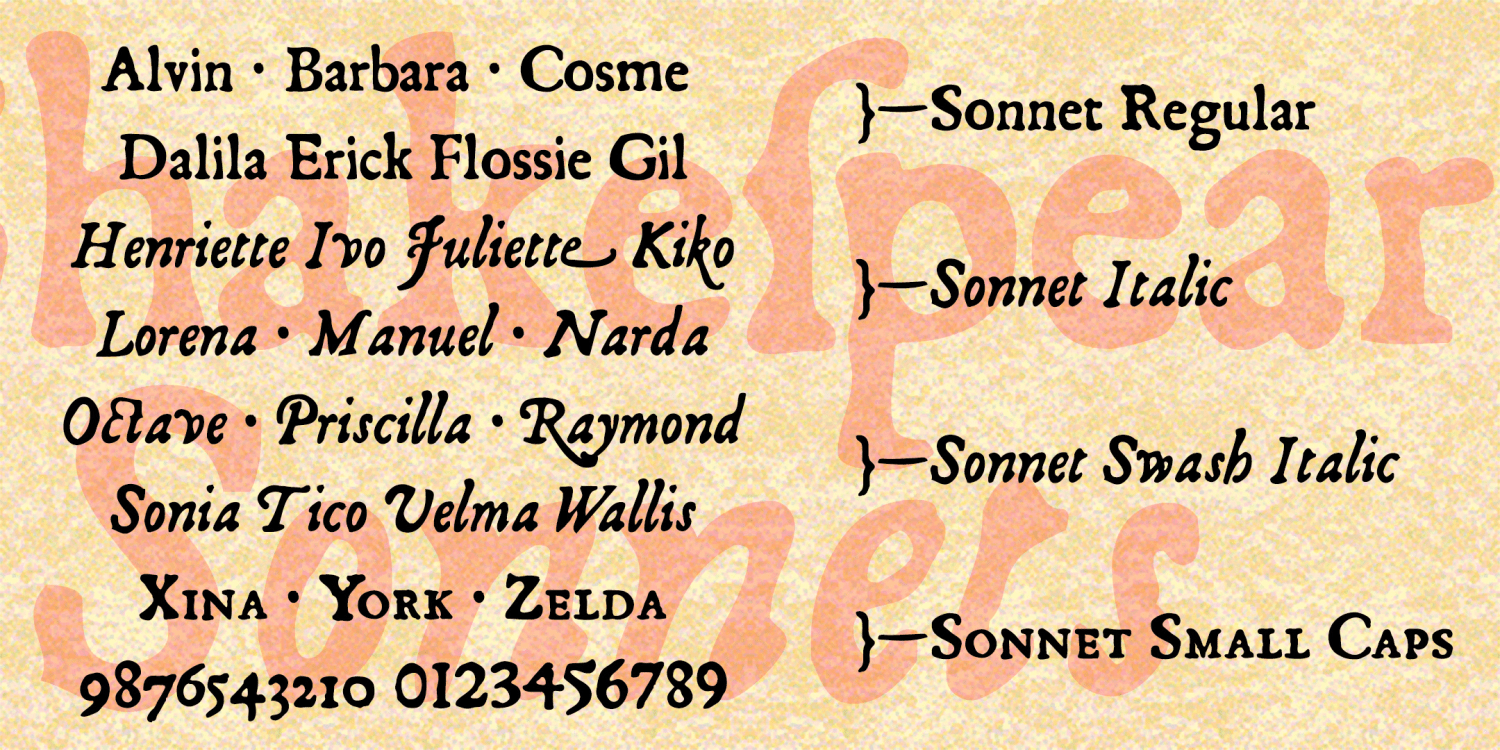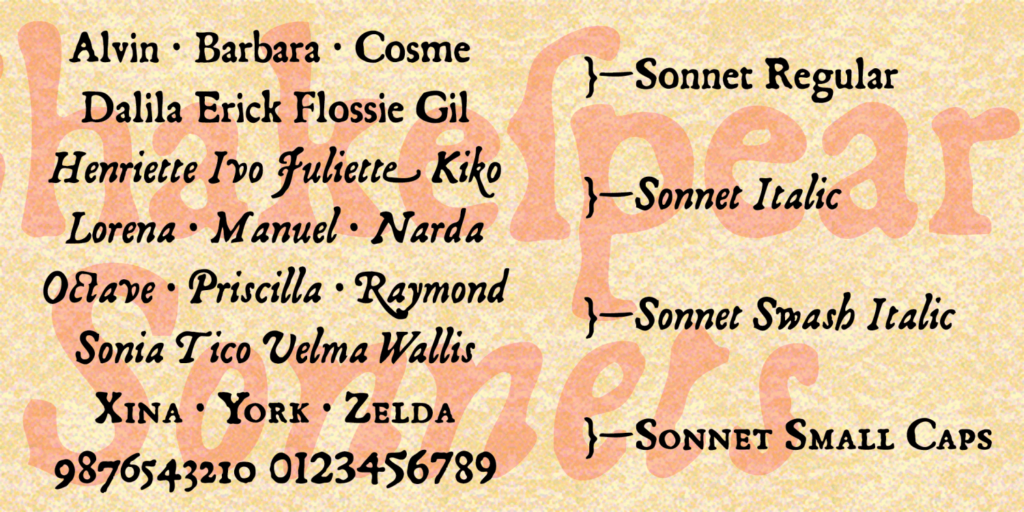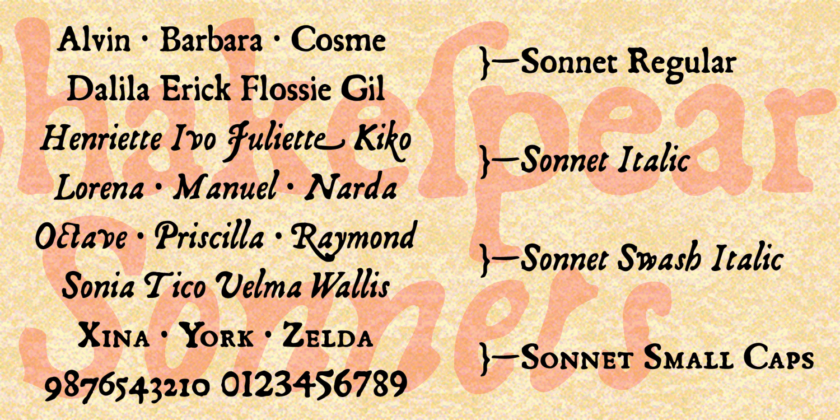
Sonnet
About Sonnet
SONNET is a set of fonts with the look of early letterpress printing; the bold and beautiful letter forms contrast with the roughness of the technology and paper of the time. This would be a good alternative to the overused and ahistoric Caslon Antique.…